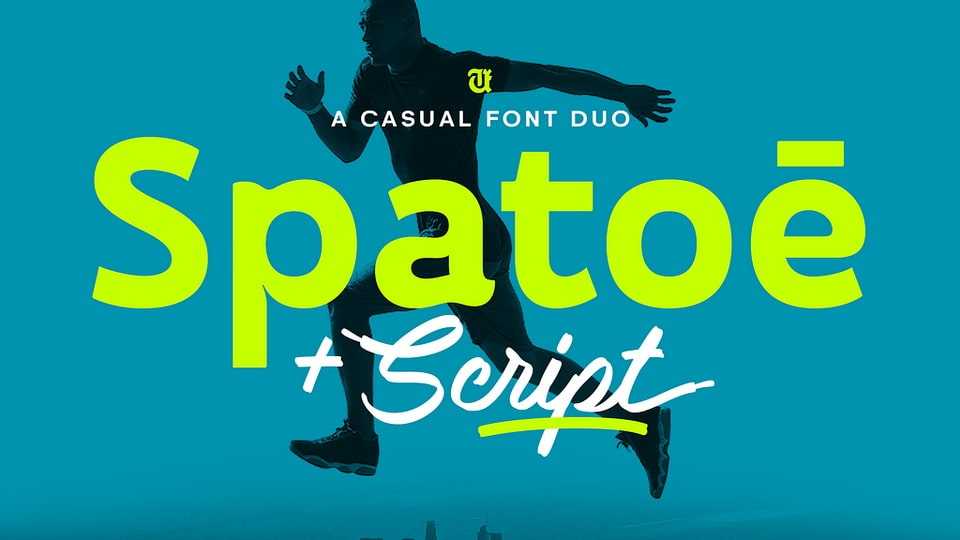
Download Spatoe font, a unique typeface that combines modern design with storytelling. UT Spatoe Sans is inspired by the clean, bold lines of a sneaker sole, giving it a sleek, contemporary feel.
Designer: Universitype Foundry